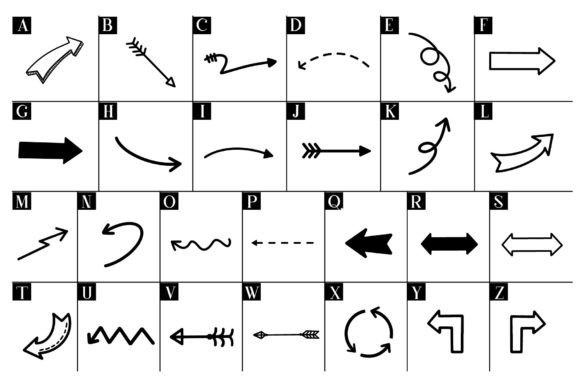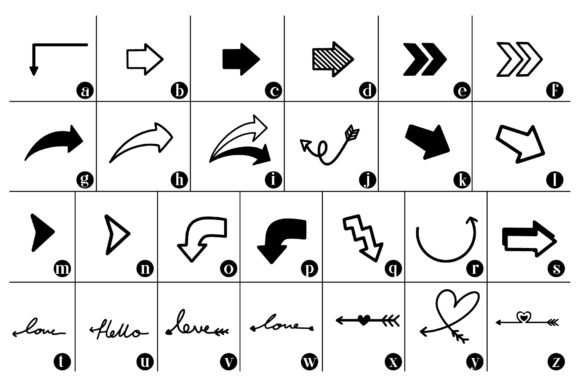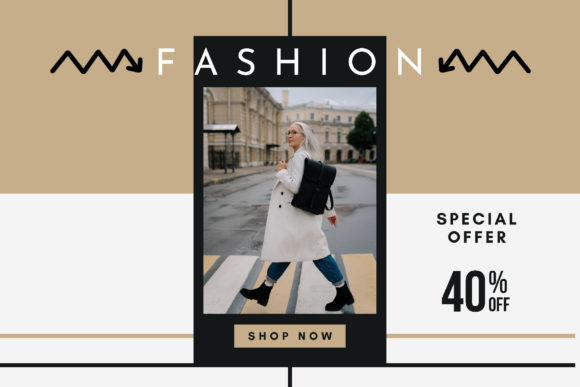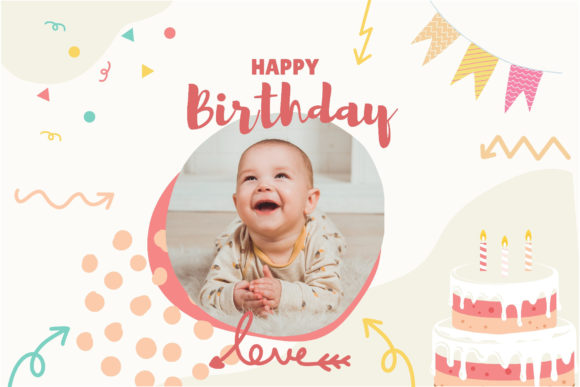
Unlocking Creative Potential with Arrow Font: A Comprehensive Guide
When it comes to adding a touch of personality and uniqueness to designs, arrow fonts, also known as arrows dingbats font, stand out as a versatile and creative tool. These hand-drawn dingbats are not just aesthetically pleasing; they are also incredibly functional, making them suitable for a wide range of applications, from decorating designs to enhancing plans. In this article, we’ll dive into the world of arrow fonts, exploring their benefits, uses, and how they can elevate your creative projects.
What are Arrow Fonts?
Arrow fonts, or arrows dingbats font, are collections of symbols that feature arrows and other related motifs. Unlike traditional fonts, these dingbats are specifically designed to offer a unique visual element that can add direction, movement, and emphasis to any design. They come in a variety of styles, ranging from simple and minimalist to intricate and detailed, ensuring there’s an arrow font to suit every taste and project requirement.
The Versatility of Arrows Dingbats Font
One of the most significant advantages of using arrows dingbats font is their versatility. These symbols can be used in numerous contexts:
- Graphic Design: Add dynamic elements to brochures, posters, and digital ads.
- Web Design: Use arrows to guide users through a website, enhancing navigation and user experience.
- DIY Projects: Personalize crafts, scrapbooks, and homemade cards with unique arrow designs.
- Architectural Plans: Clearly indicate directions and features in building plans and maps.
Benefits of Using Arrow Fonts
Incorporating arrow fonts into your designs offers several benefits:
- Enhanced Visual Appeal: Arrows can draw attention and add a decorative element to your work.
- Improved Communication: Use arrows to indicate direction, flow, or progression in a visually engaging way.
- Customization: With a wide range of styles available, you can choose an arrow font that perfectly matches your project’s aesthetic.
How to Use Arrows Dingbats Font Effectively
To make the most of arrow fonts, consider the following tips:
- Mix and Match: Combine different arrow styles to create a unique visual hierarchy.
- Consider Size and Color: Adjust the size and color of your arrows to ensure they complement your design.
- Context is Key: Ensure the arrows you use are relevant to the message or theme of your project.
Arrow fonts, or arrows dingbats font, are a powerful tool in the world of design, offering a blend of creativity, functionality, and versatility. Whether you’re a professional designer or a crafty DIY enthusiast, incorporating these hand-drawn dingbats into your projects can elevate your designs, making them stand out with a touch of personality and flair. So, explore the world of arrow fonts today and unlock the full potential of your creative ideas.